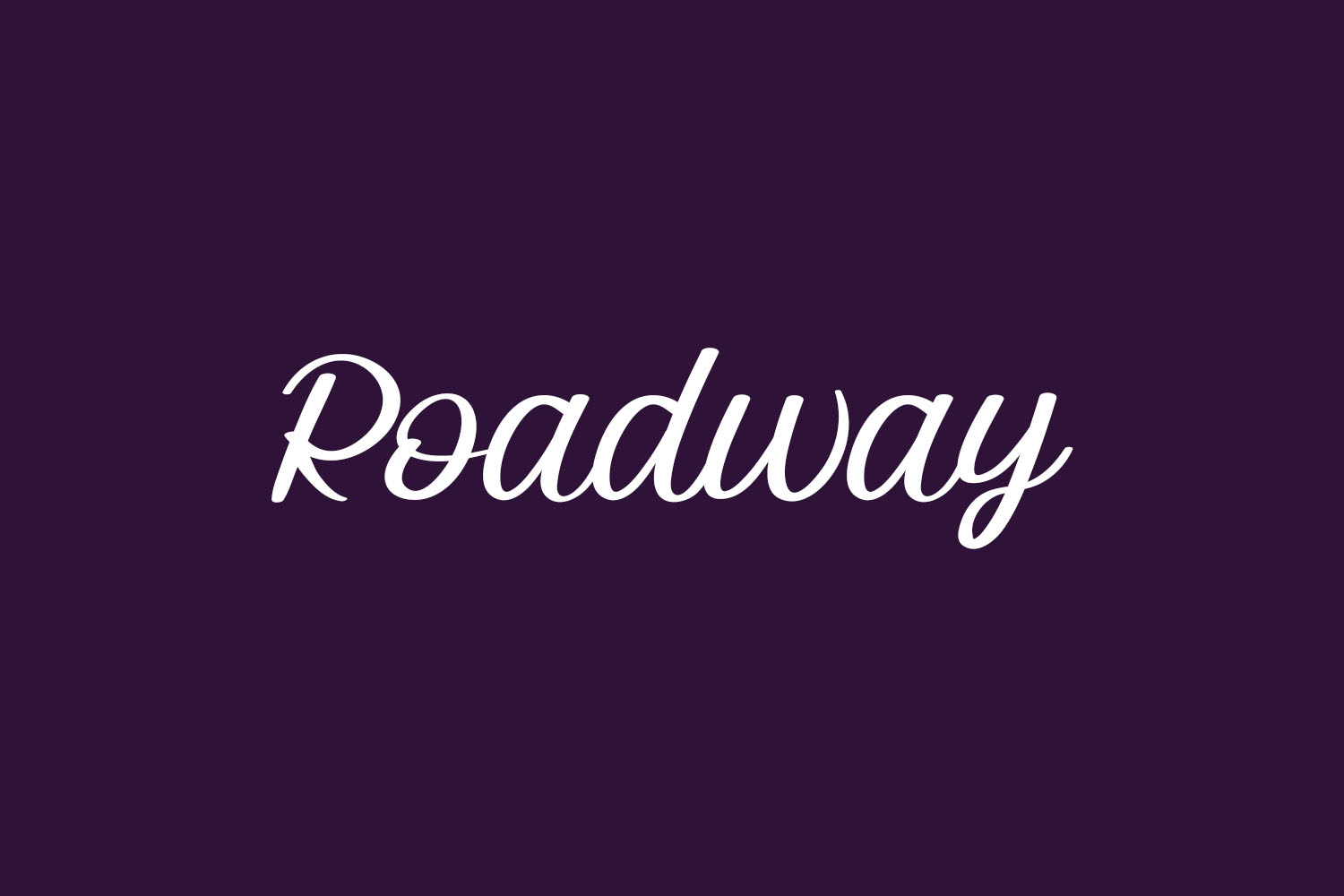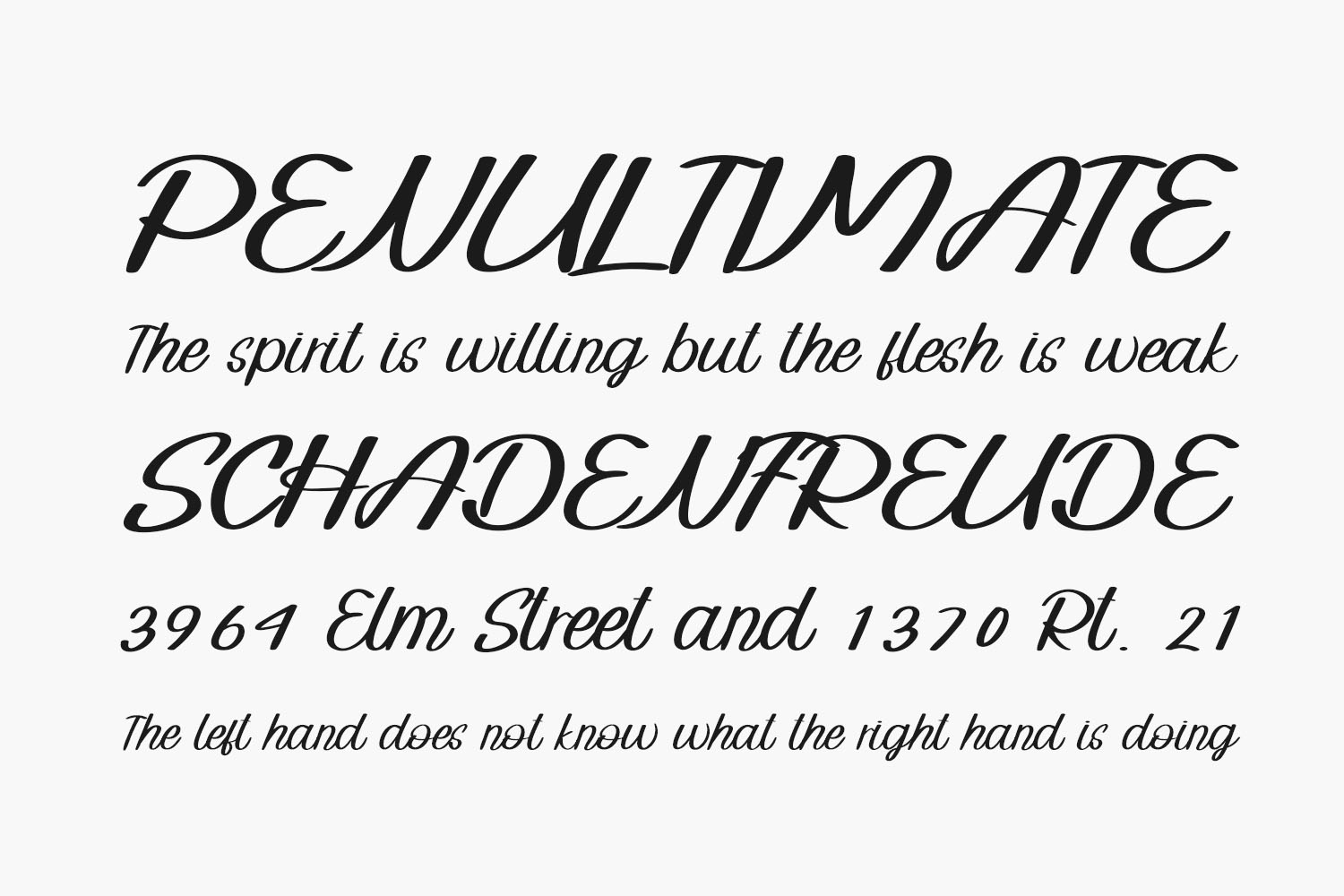
Introducing Roadway Free Font, a meticulously crafted delicate handwritten font designed to bring a cool and unique touch to your creations. This versatile font is perfect for crafting letters, invitations, food product labels, titles, and more. Elevate your design with the distinctive charm of Roadway. Roadway Free Font is free for personal use only. Please purchase the full version for commercial use.
Designed by Etik Fatimah